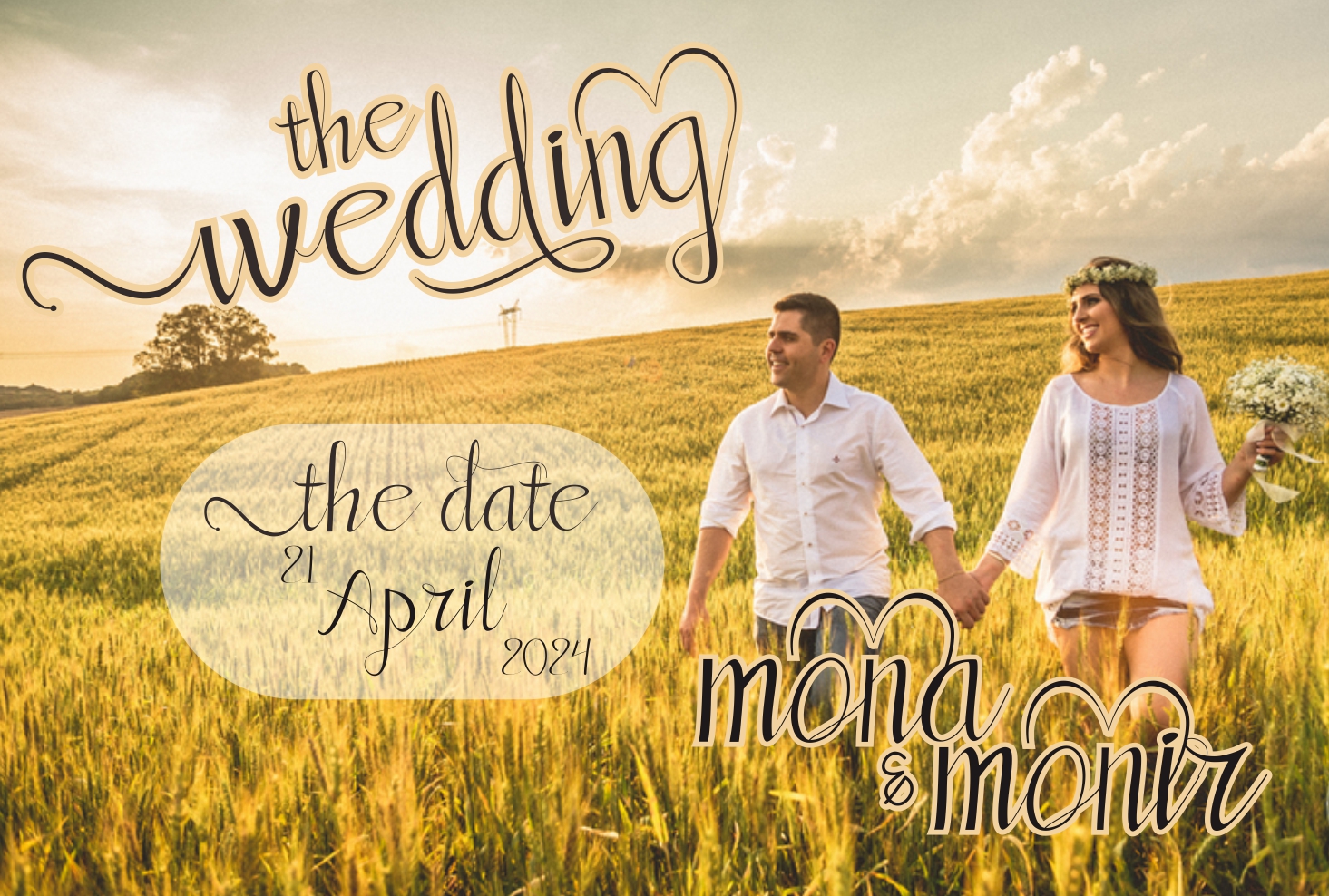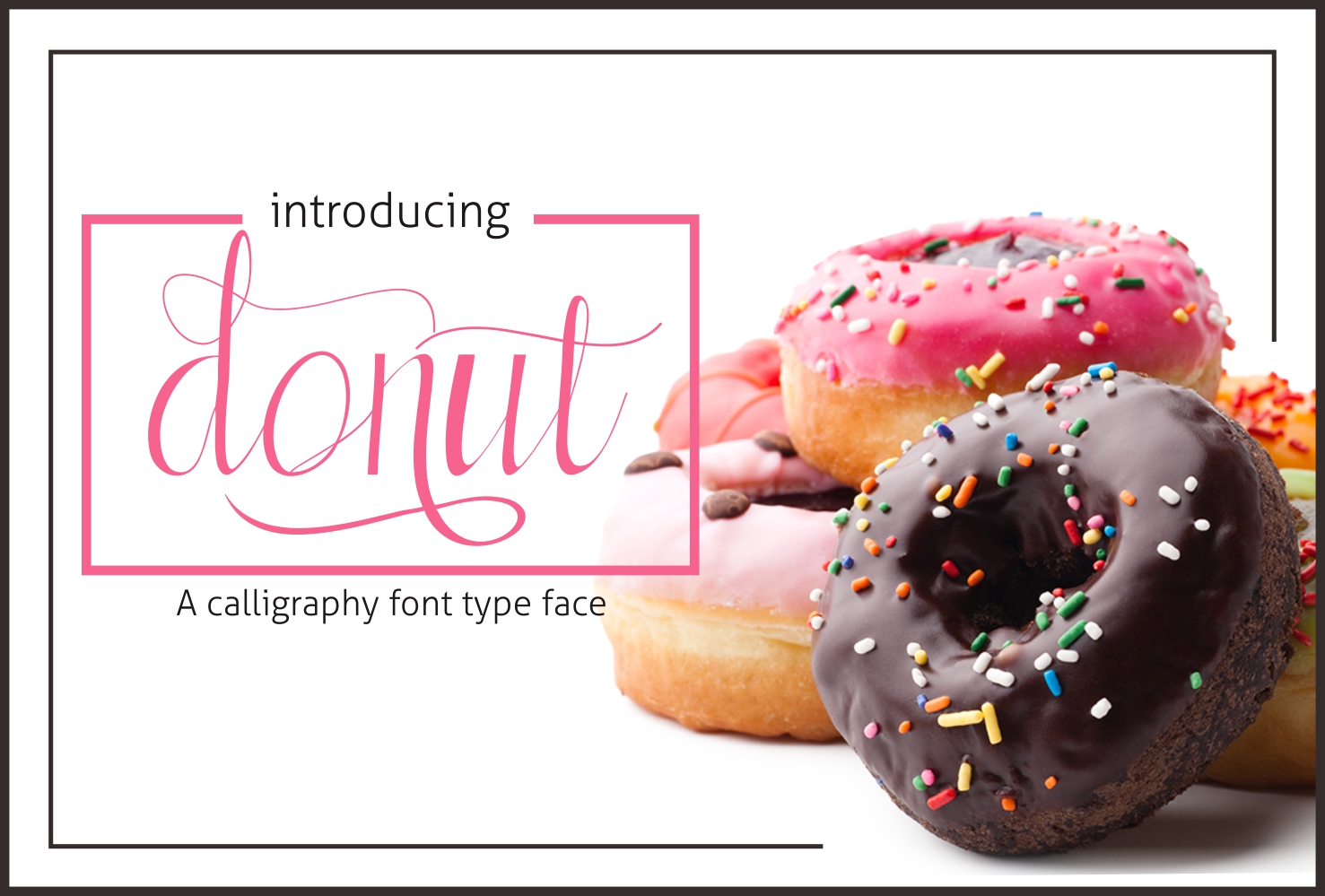
Dipatunal Font
Dipatunal is a modern yet classically inspired script font; this calligraphy font is full of swashy alternates, and looks stunning on special event projects and assets.